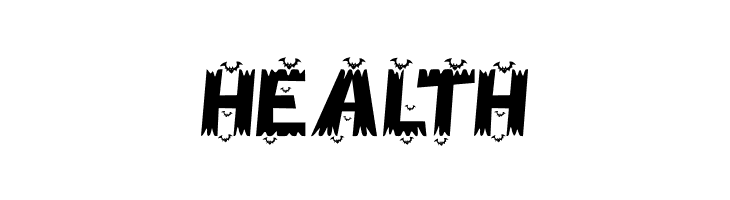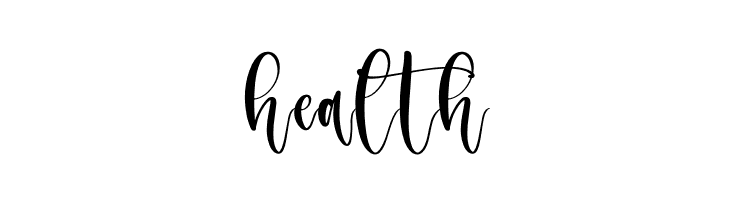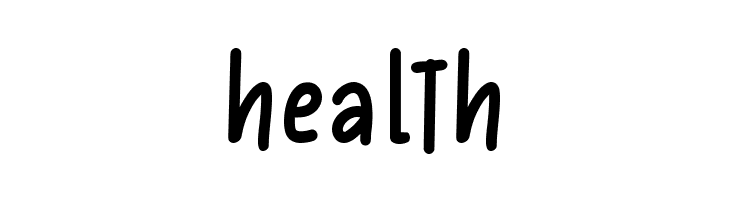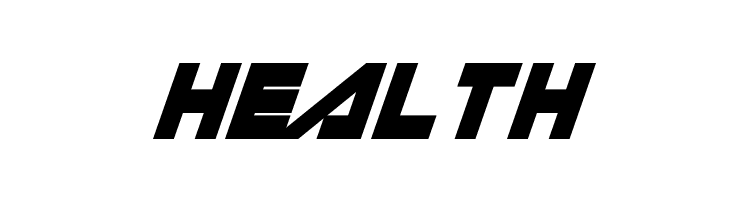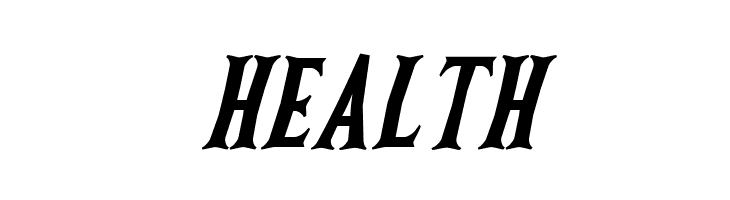
• Ghost Zone - Personal Use
A bold, jagged font with a spooky, haunted theme.
• Ghostz Italic
A bold, italic font with high contrast and dynamic, energetic style.
• Giant Oranges
A playful, handwritten font with a casual and friendly appearance.
• Gillian Rode
An elegant script font with flowing, interconnected letters and decorative flourishes.
• Gillian Wallace
Elegant cursive font with interconnected characters and stylish flourishes.
• Gin Rai Oblique
A bold, oblique font with a futuristic and dynamic style.
• Gishefa
A modern, elegant script font with a flowing, handwritten style.
• Gishefa Italic
A dynamic, flowing script font with elegant cursive letterforms.
• Gladifilthefte
A modern, high-contrast serif font with tall, narrow letterforms and elegant serifs.
• Glassy
A graceful, cursive script font with a smooth, handwritten style.